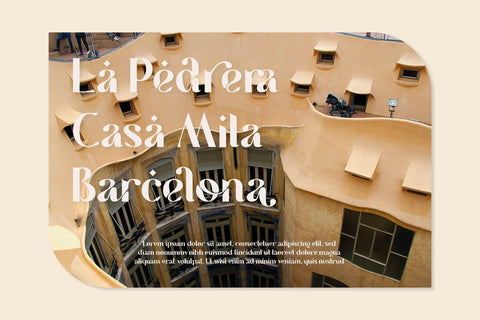
Marvella | Ligature Typeface
Introducing the new Marvella Modern & Classic Ligature Typeface!!! Marvella is a luxury and glamour serif typeface.Marvella come with 2 versions, regular & Italic. This font is both modern and nostalgic and works great for logos, magazine, social media. Already matched up and ready to be used together for your next design!
For those of you who are needing a touch of elegant, stylish, classy, chic and modernity for your designs, this font was created for you!
Perfect for editorial projects, Logo design, Clothing Branding, product packaging, magazine headers, or simply as a stylish text overlay to any background image.